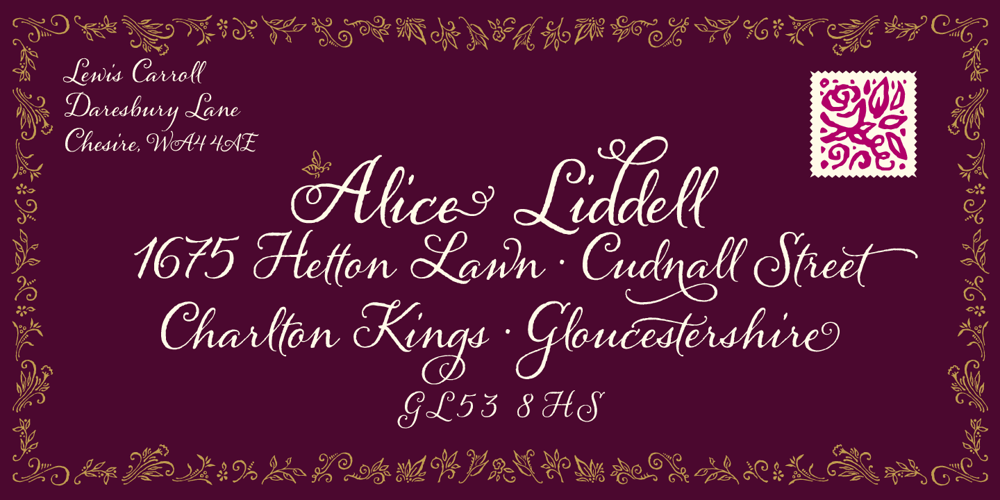
Alana Font Family was designed by Laura Worthington and published by Laura Worthington Design. Alana contains 3 styles and family package options. Alana is a connected script that glows with casual elegance. Its inviting letterforms work well in settings such as letter-writing and menu details; even at small sizes. Set at display sizes, Alana’s strokes reveal rough edges evocative of ink on textured paper. Alana includes over 300 alternates, including swash capitals and ornamented forms to customize titles, headlines, packaging, and wordmarks. Alana includes 62 matching ornaments: botanical fleurons, birds, and cute lil’ bugs. See what’s included! http://bit.ly/2bXTLvP *NOTE* Basic versions DO NOT include swashes, alternates or ornaments These fonts have been specially coded for access of all the swashes, alternates and ornaments without the need for professional design software! Info and instructions here: http://lauraworthingtontype.com/faqs/